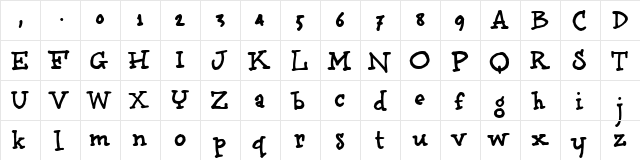
brunoBook Regular
Design Context for brunoBook Typeface
brunoBook is a composed and adaptable typeface that performs quietly and consistently across a wide range of design contexts.